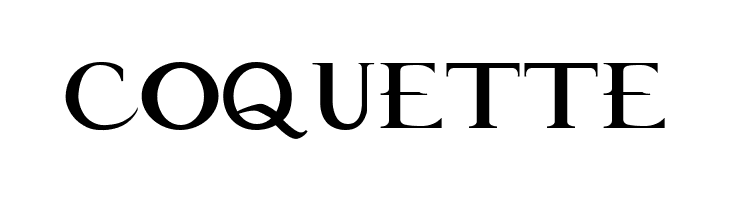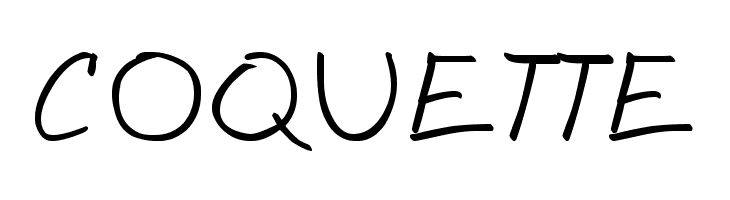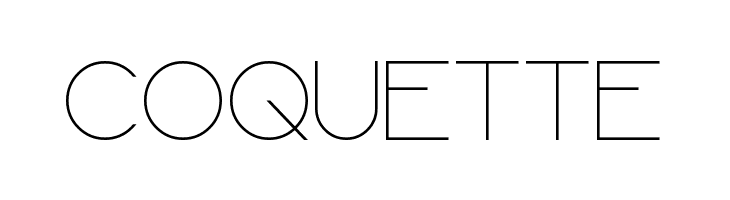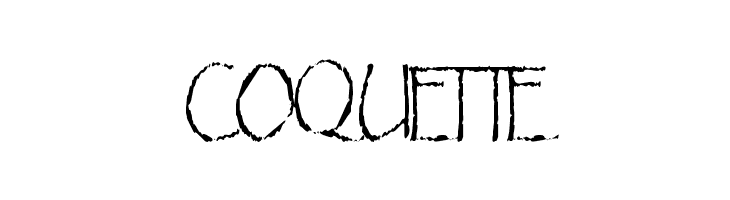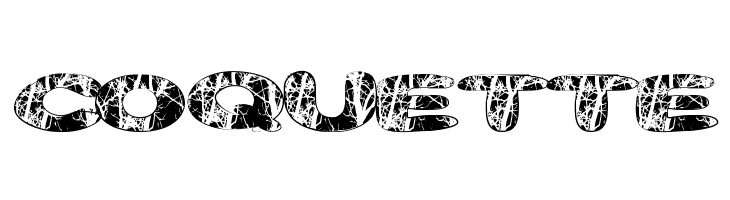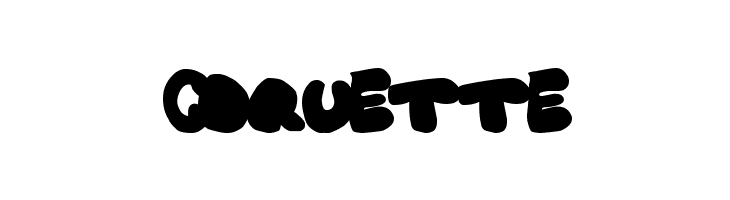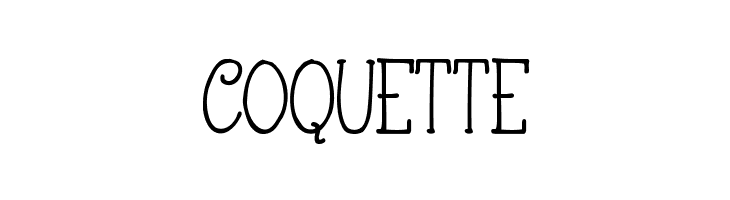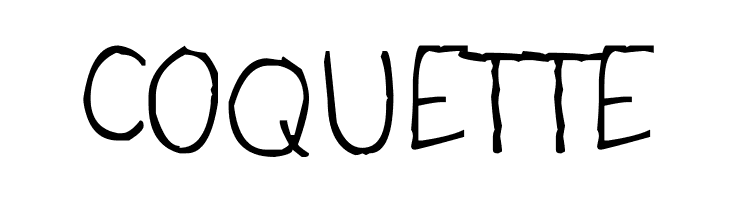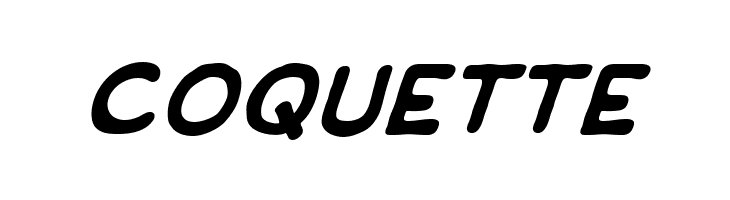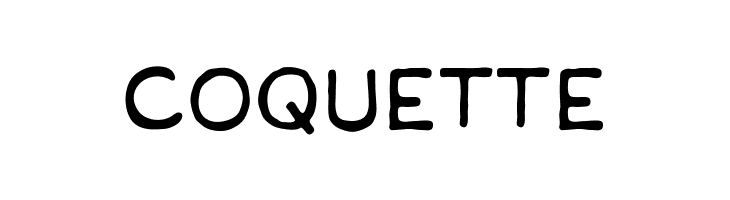
A modern, geometric font with sharp angles and clean lines.
A playful, outlined font with a hand-drawn, whimsical style.
( Roger White - web.archive.org/web/20120416090521/www.rogersfonts.org.uk/ )
A classic serif font with an open face design, offering elegance and readability.
( SDFonts. http://www.angelfire.com/scifi2/sdfonts/index.html )
A bold, geometric font with a modern and impactful style.
( SDFonts. http://www.angelfire.com/scifi2/sdfonts/index.html )
A bold, italicized font with a dynamic and modern style.
( SDFonts. http://www.angelfire.com/scifi2/sdfonts/index.html )
A bold, geometric font with a strong, modern presence.
( SDFonts. http://www.angelfire.com/scifi2/sdfonts/index.html )
A bold, italic font with a modern, dynamic style and high contrast.
( Fonts by Andrew McCluskey - nalgames.com )
A bold, angular font with sharp, splintered edges for a striking appearance.
( Footnote Fonts )
A bold, hand-drawn font with a chaotic, artistic style.
A futuristic, angular font with a bold, geometric design.
( Fonts by Colorful Typhoon - http://orange.s56.xrea.com/blog/ )
A bold, playful font with chunky, rounded characters.
A bold, industrial-style font with high contrast and angular edges.
A modern, geometric sans-serif font with clean lines and a friendly appearance.
( Fonts by Neale Davidson - www.pixelsagas.com )
A bold, pixelated font with a retro, digital aesthetic.
A bold, geometric font with a modern, industrial feel.
( Fonts by www.lifewithouttaffy.com )
A bold, distressed font with an edgy, grunge-like appearance.
A futuristic, geometric font with high contrast and rounded, bold characters.
A bold, textured font with a halftone effect, ideal for creative projects.
A decorative and playful font with intricate patterns and artistic flair.
( Fonts by Goma Shin - Shintarou Nakayama www.geocities.jp/gomarice_font/ )
A playful, rounded font with bold, smooth curves and a friendly, whimsical style.
A playful, rounded font with smooth curves and a friendly appearance.
( Fonts by Goma Shin - Shintarou Nakayama www.geocities.jp/gomarice_font/ )
A bold, playful Western-style font with rounded, thick strokes and bulbous terminals.
A bold, playful font with rounded edges and thick strokes.
( Fonts by Goma Shin - Shintarou Nakayama www.geocities.jp/gomarice_font/ )
A bold, rounded font with a playful and modern style.